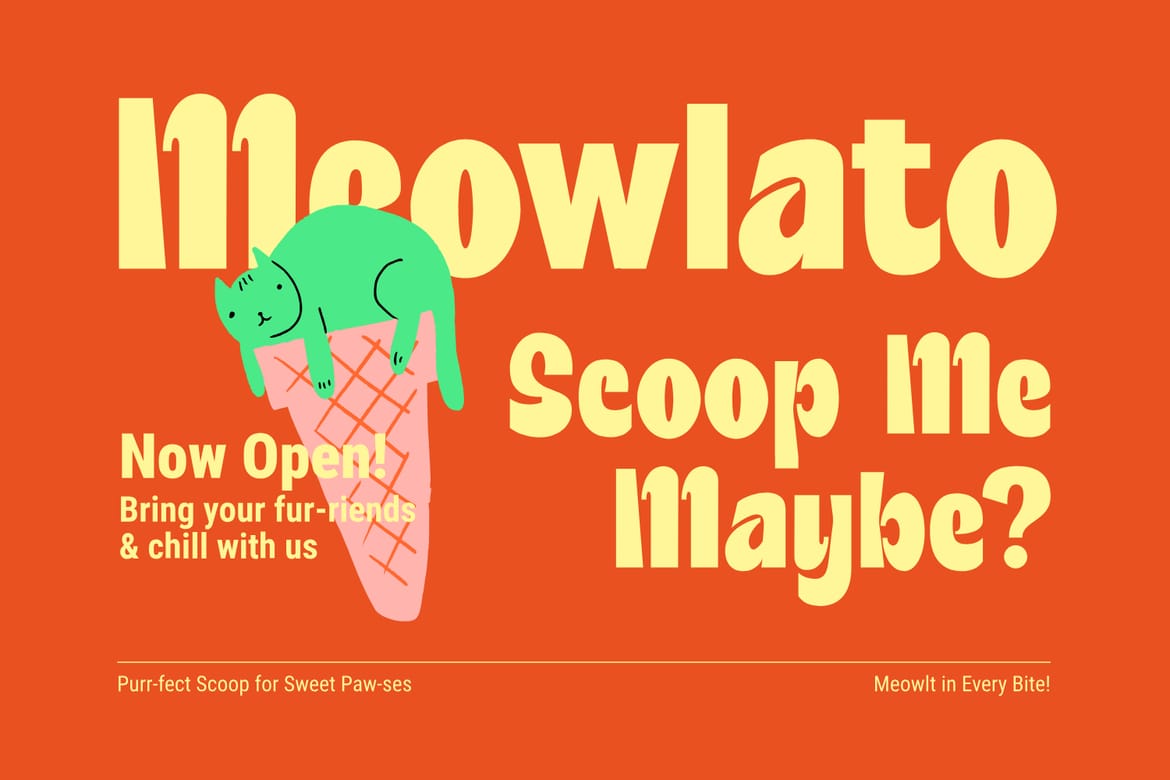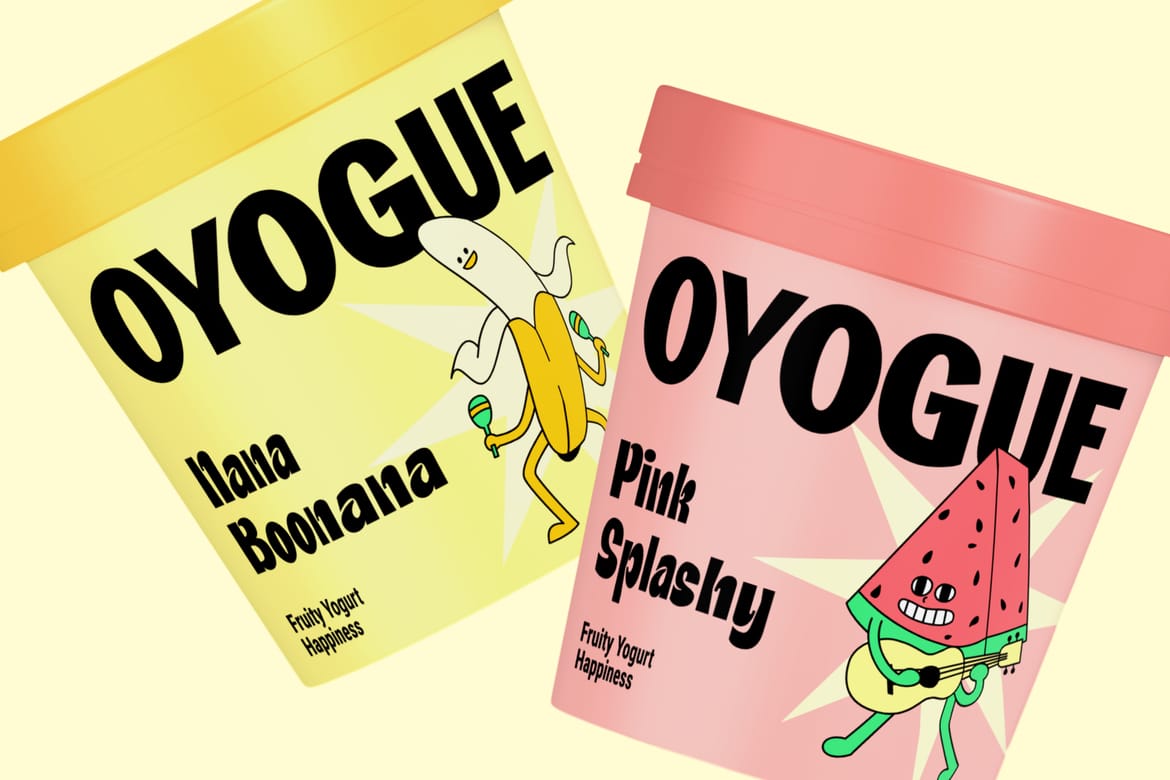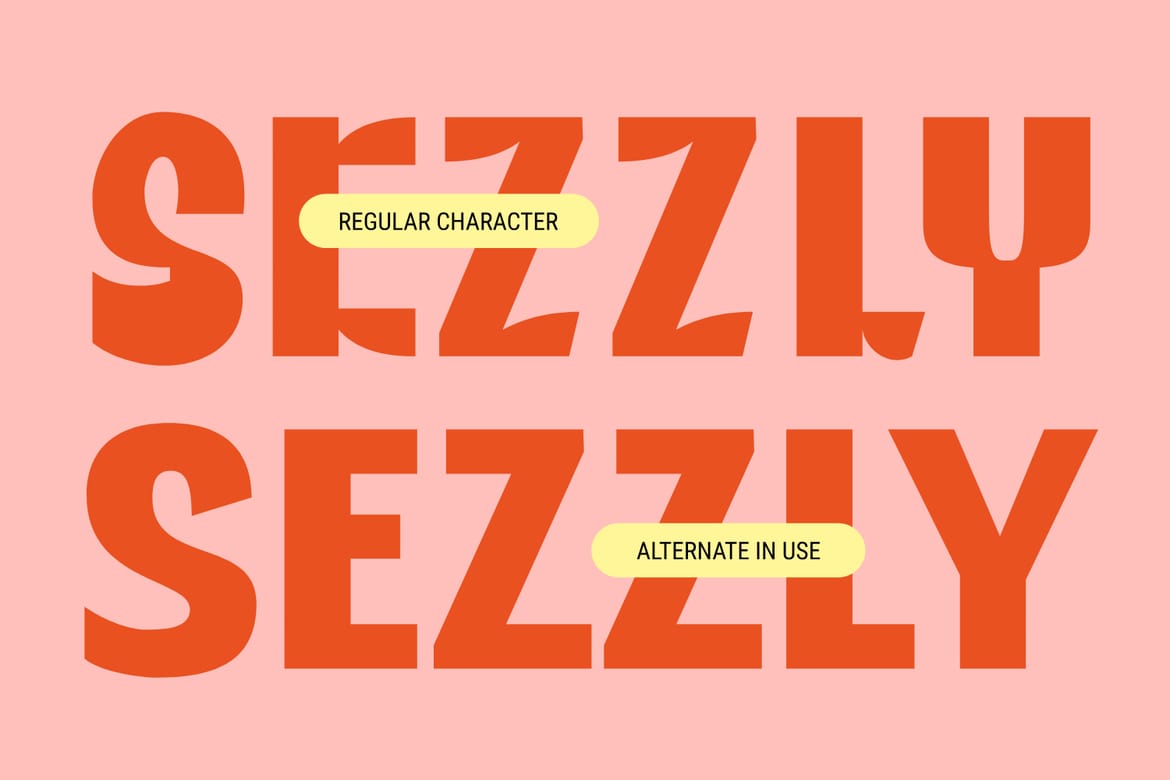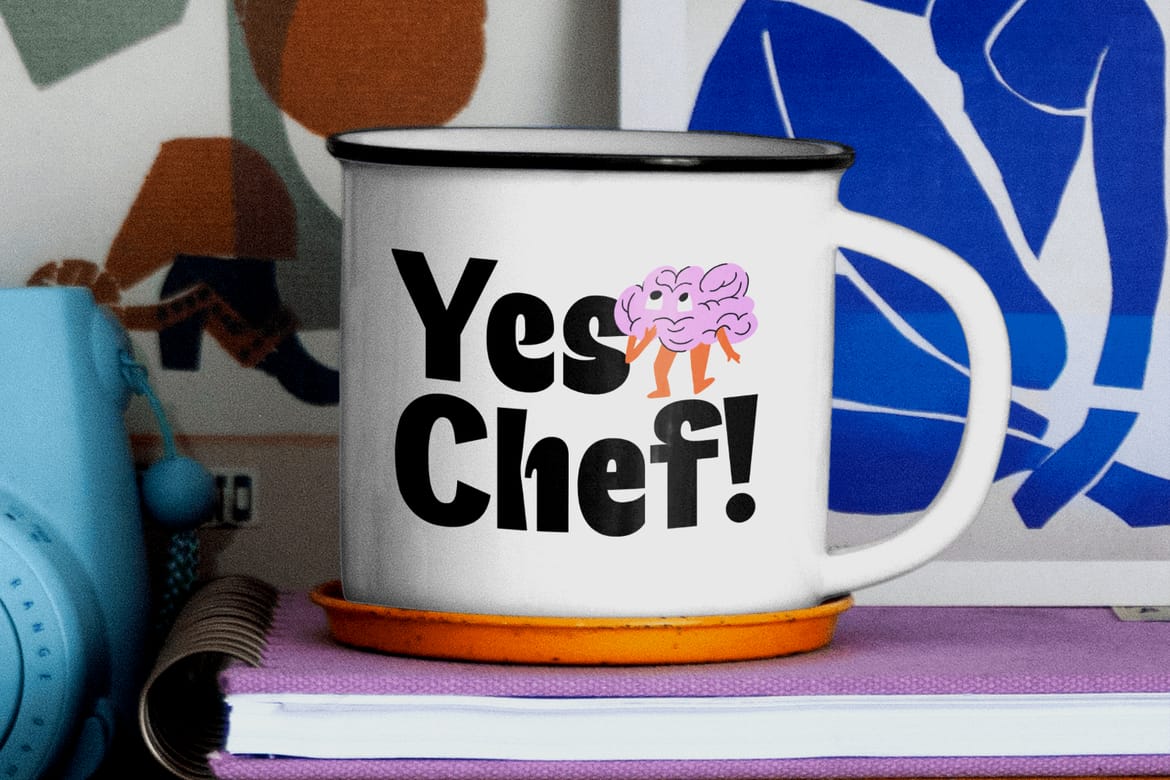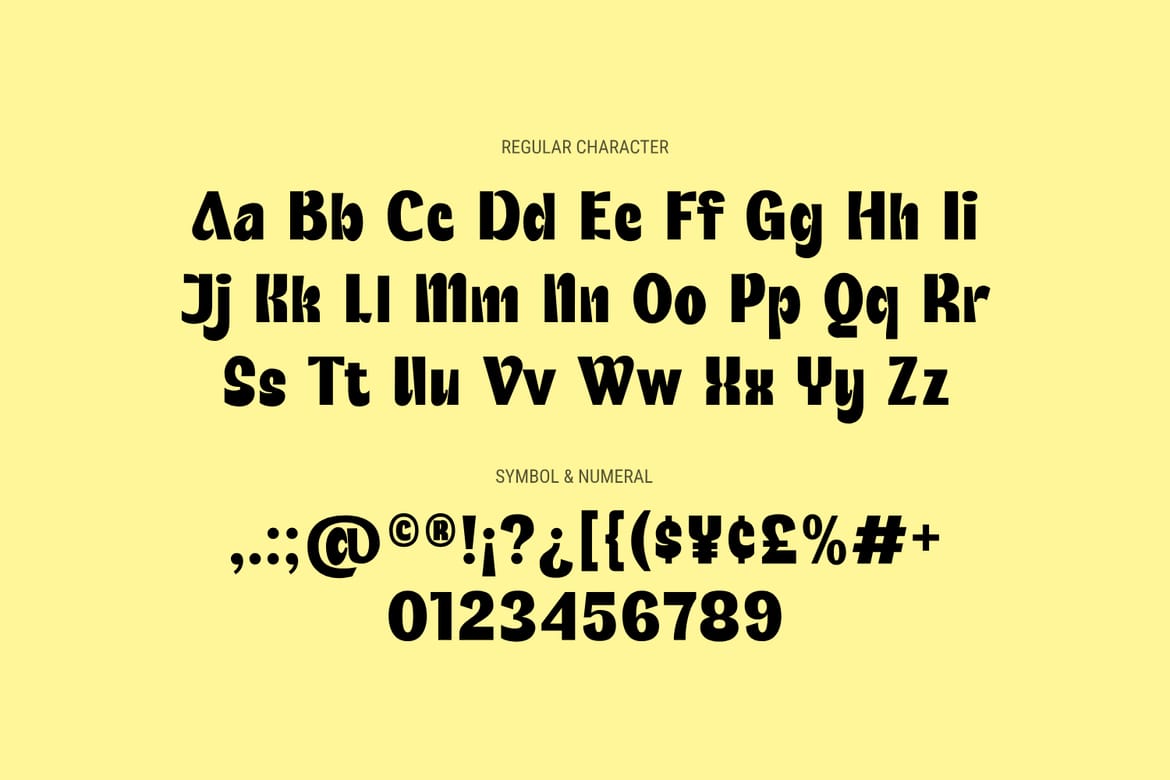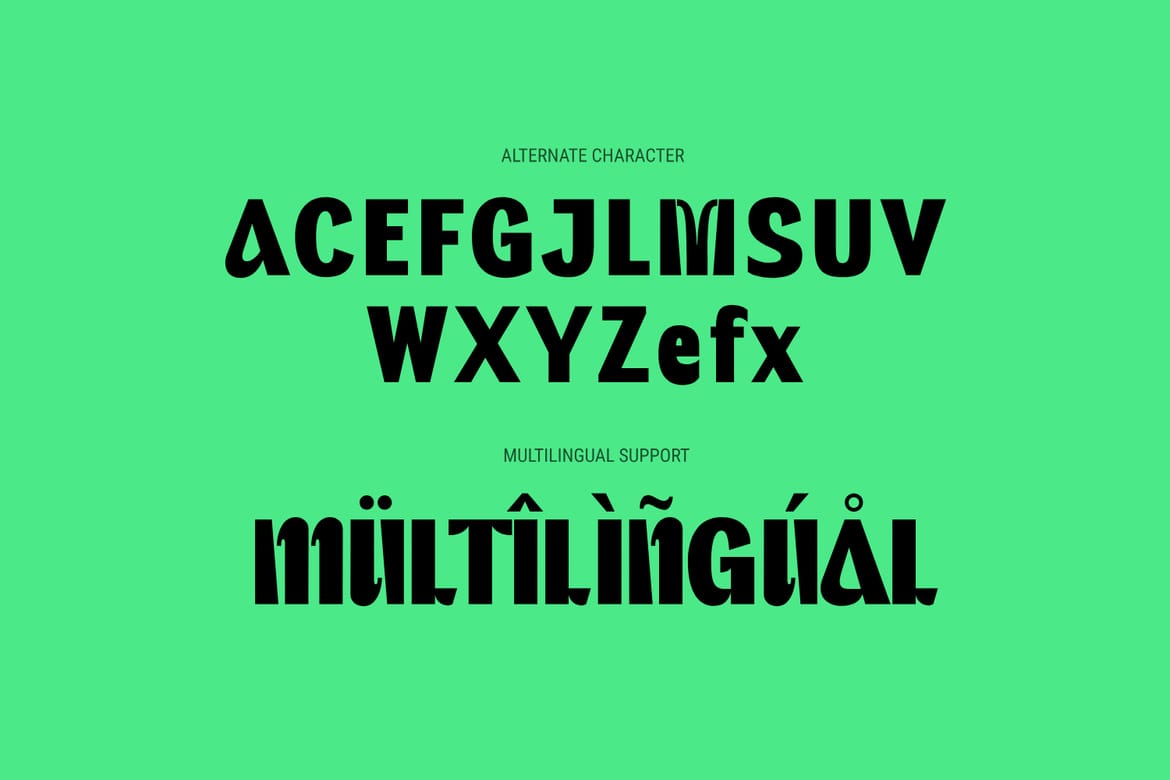
Qifolk is a bold and flavorful display font crafted especially for food logos and culinary branding. Designed to bring warmth, appetite appeal, and personality to your projects, Qifolk is perfect for restaurant logos, café branding, food packaging, menu designs, social media graphics, and delicious headline statements.